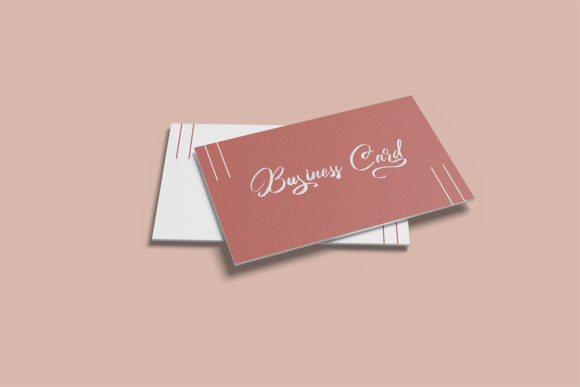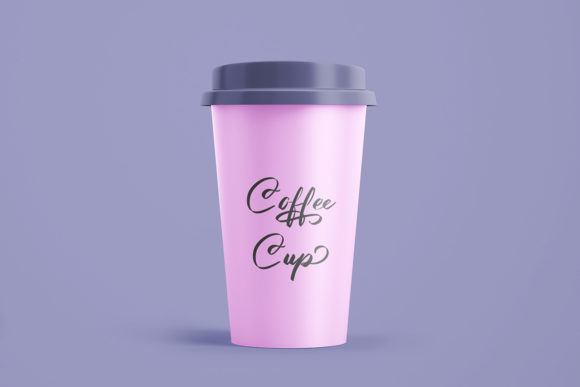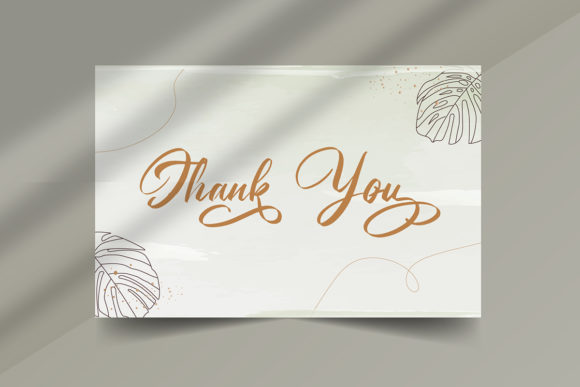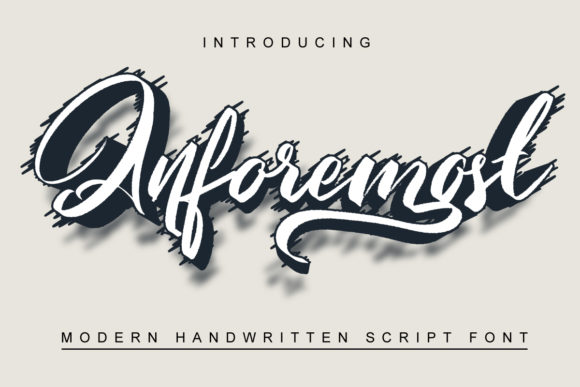
The Quest for the Perfect Font: Discovering Anforemost
I’ll never forget the time I was working on a wedding invitation project, and my client asked for a font that would add a touch of romance and whimsy to the design. I scoured the internet, tried out countless fonts, but nothing seemed quite right. That was until I stumbled upon Anforemost, a modern handwritten script font that stole my heart. In this article, I’ll share my experience with Anforemost, its features, and how to make the most of it in your designs.
A First Impression: What I Love About Anforemost
Anforemost is a beautiful, modern handwritten script font that has a wide range of applications, from packaging products to invitation cards to headlines. Here are some things I love about it:
- ✨ Elegant and romantic feel: Anforemost adds a touch of sophistication and whimsy to any design.
- ✅ Highly versatile: It can be used for a variety of projects, from formal events to casual branding.
- 💫 PUA encoded: This means you can access all the glyphs and swashes with ease, making it a joy to work with.
The Not-So-Perfect: Small Quirks and Limitations
While Anforemost is an amazing font, it’s not without its quirks. Here are a few things to keep in mind:
- 🤔 Limited use in very formal or corporate designs: Anforemost is a script font, and as such, it may not be the best choice for very formal or corporate projects.
- ⚠️ May require some kerning adjustments: As with any font, you may need to make some kerning adjustments to get the most out of Anforemost.
The Story Behind Anforemost
Anforemost was designed with the intention of creating a modern, elegant script font that would add a touch of romance and whimsy to any design. The designer drew inspiration from classic script fonts, but with a modern twist. The result is a font that’s both elegant and playful, perfect for a wide range of design projects.
| Font Name | Anforemost Font |
| Author | AMJ Studio |
| What is Anforemost? | Anforemost is a modern handwritten script font with a wide range of applications. |
| Is Anforemost PUA encoded? | Yes, Anforemost is PUA encoded, which means you can access all the glyphs and swashes with ease. |